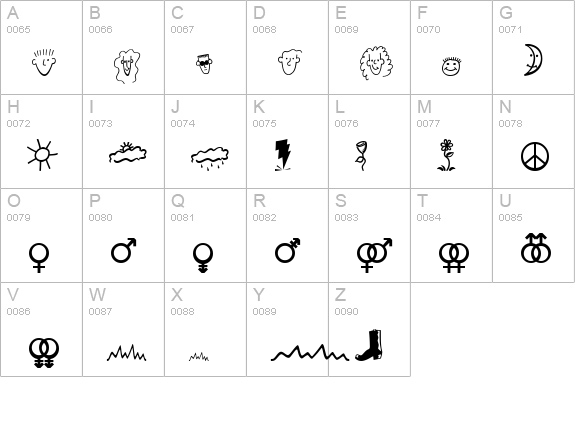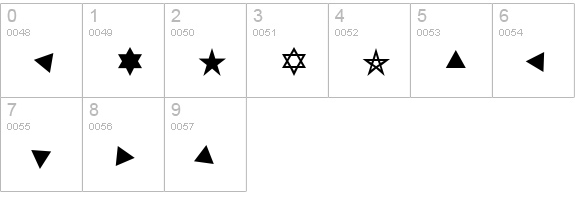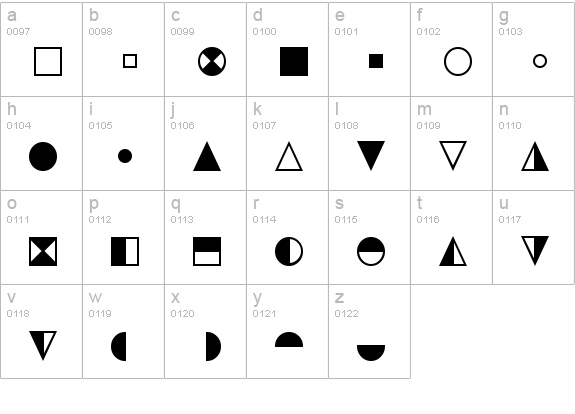
Quirks ICG Font Details
Quirks ICG font is a playful and charming typeface that adds a touch of whimsy to any design project. Its unique and quirky letterforms are sure to catch the eye and bring a sense of fun to your designs. With its bold and distinctive strokes, Quirks ICG font is perfect for headlines, logo designs, and any other creative projects that require a touch of personality. Whether you're designing a poster, a greeting card, or a website, this font will add a delightful twist to your words. One of the best things about Quirks ICG font is that it is completely free. Yes, you read that right - you can download this font for free at FontsMarket.com. This means that you can use it in both personal and commercial projects without any restrictions. So go ahead and let your creativity run wild with this whimsical and free font. Download Quirks ICG font from FontsMarket.com today and bring a touch of quirkiness to your designs. Whether you're a professional designer or just someone who loves to dabble in creative projects, this font is sure to become a favorite in your collection. Embrace the playful side of design and let Quirks ICG font add a dash of fun to your next project.